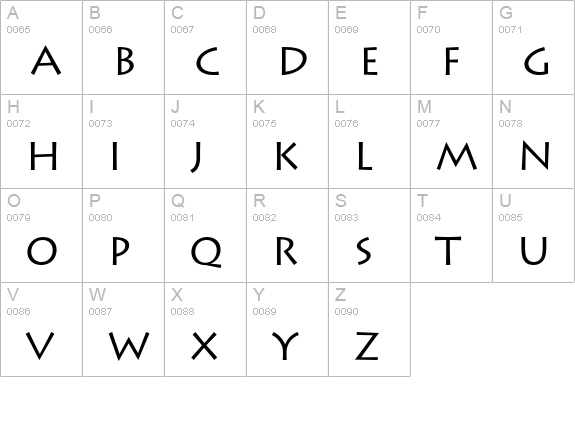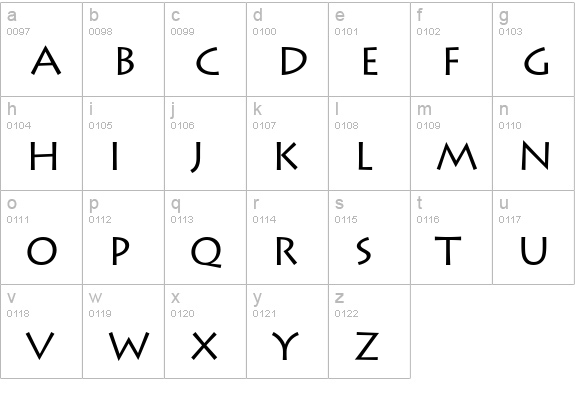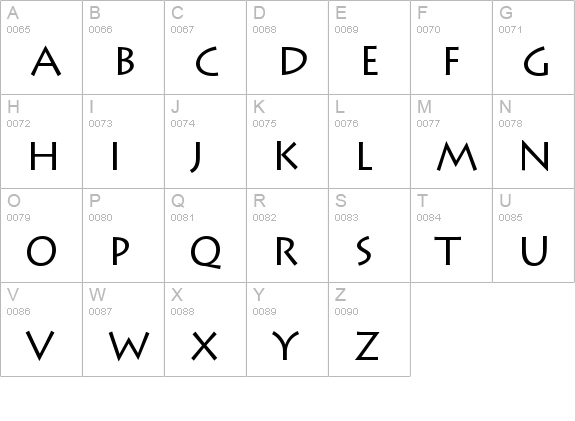
Austere SSi Font Details
Austere SSi is a sleek and modern font that exudes sophistication and elegance. With its clean lines and sharp angles, this font is perfect for conveying a sense of professionalism and minimalism. The austere nature of this typeface makes it ideal for a wide range of design projects, from branding to editorial layouts. What sets Austere SSi apart is not only its striking appearance but also the fact that it is available for free download. That's right, you can access this premium font at no cost on FontsMarket.com. Whether you're a designer looking to elevate your projects or a business in need of a fresh and contemporary font, Austere SSi is the perfect choice. Download it today and see the impact it can make on your designs.